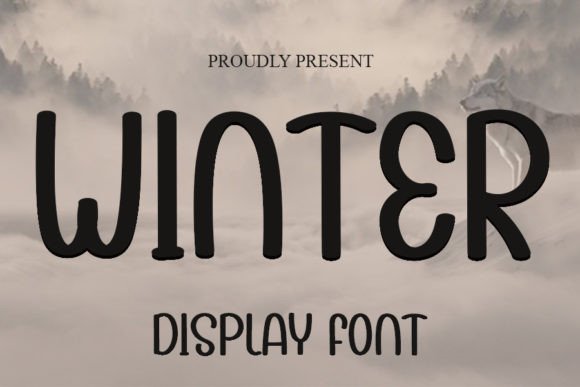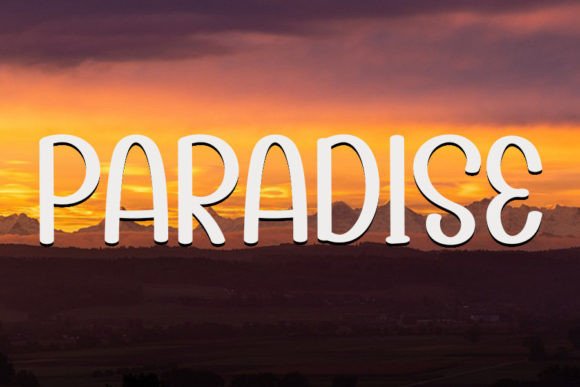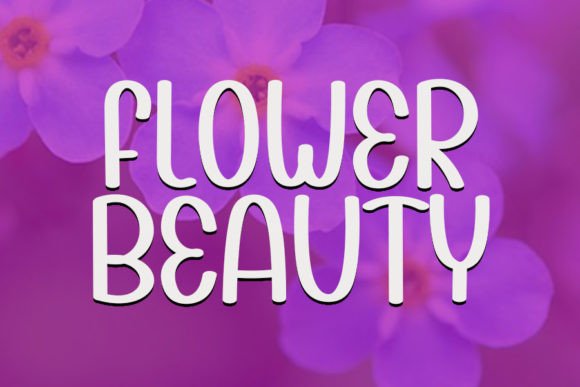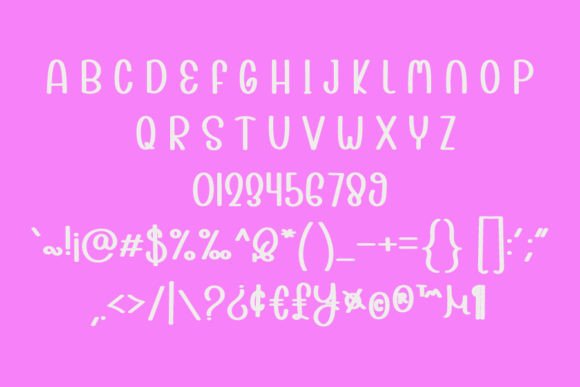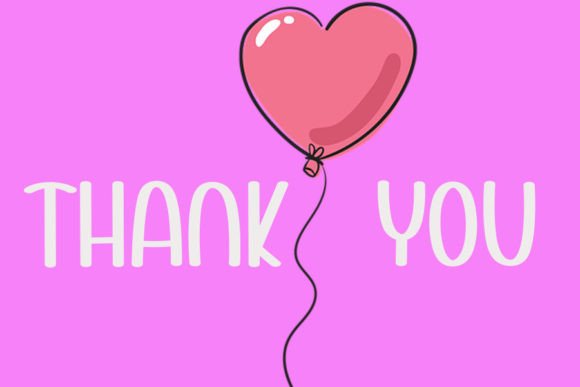
Winter Font
Winter Font Download – Elegant Neat Handwritten Script
The Winter Font download is a neat handwritten typeface designed with elegance and charm. With its smooth strokes and timeless character, this font is suitable for a wide range of creative projects. Because it blends beauty with versatility, it works equally well for personal crafts and professional branding.
Elegant and Timeless Handwritten Style
Winter features graceful curves and a balanced handwritten flow. As a result, it adds sophistication and warmth to any text. In addition, its timeless qualities ensure your designs remain fresh and stylish for years to come.
From wedding invitations to seasonal greeting cards, this font brings a heartfelt and elegant tone. It makes words feel more personal and unique. Therefore, it is a great choice for stationery and event projects.
Winter Font Download for Posters and Logos
The Winter Font download is also a strong option for posters, logos, and branding campaigns. Its neat strokes keep your text readable while giving it a creative and professional look.
Versatility Across Creative Projects
From handmade crafts to social media graphics, this font adapts seamlessly. In addition, it performs well across both print and digital media, making it a reliable tool for modern designers.
Readability and Style Balance
Some handwritten fonts focus on decoration at the cost of readability. However, Winter achieves a balance between clarity and beauty. As a result, it works perfectly for both large titles and smaller details.
Why Add This Script Typeface to Your Collection?
The Winter Font download is elegant, versatile, and easy to use. In other words, it suits greeting cards, invitations, posters, logos, and creative branding. Finally, it is a handwritten script that adds warmth, charm, and sophistication to every project.